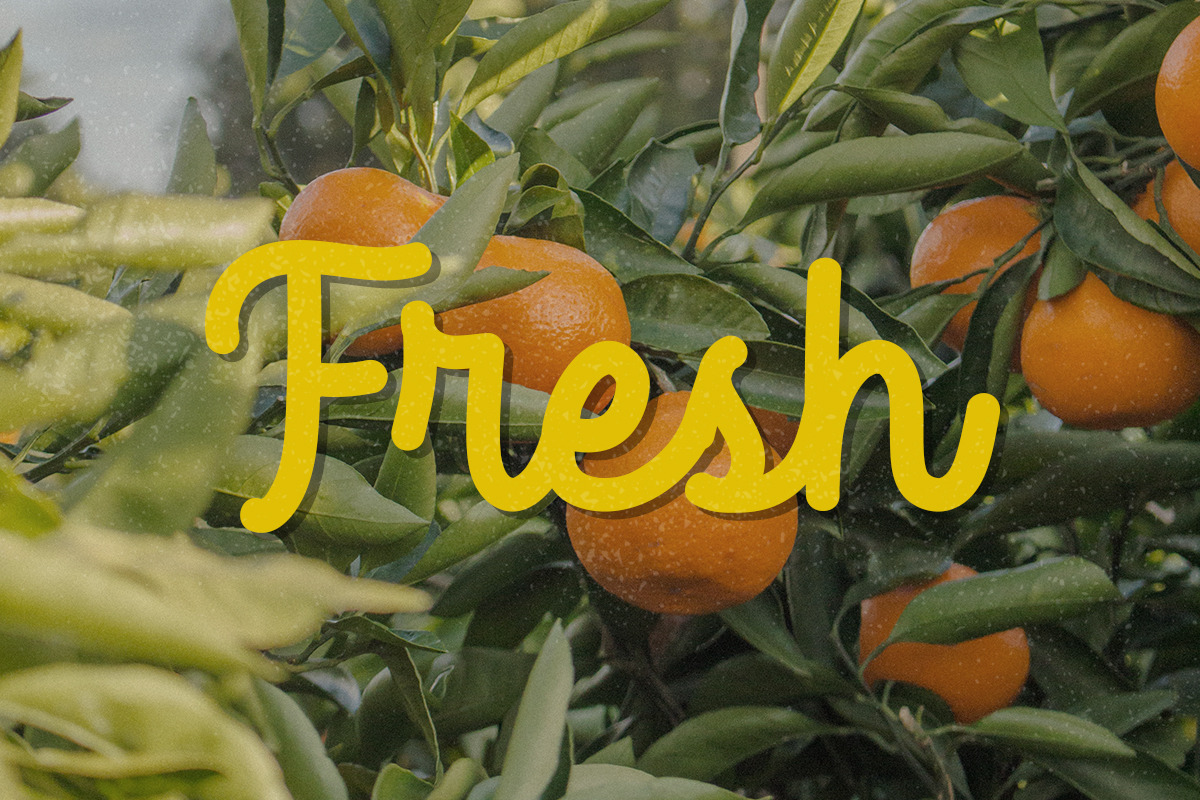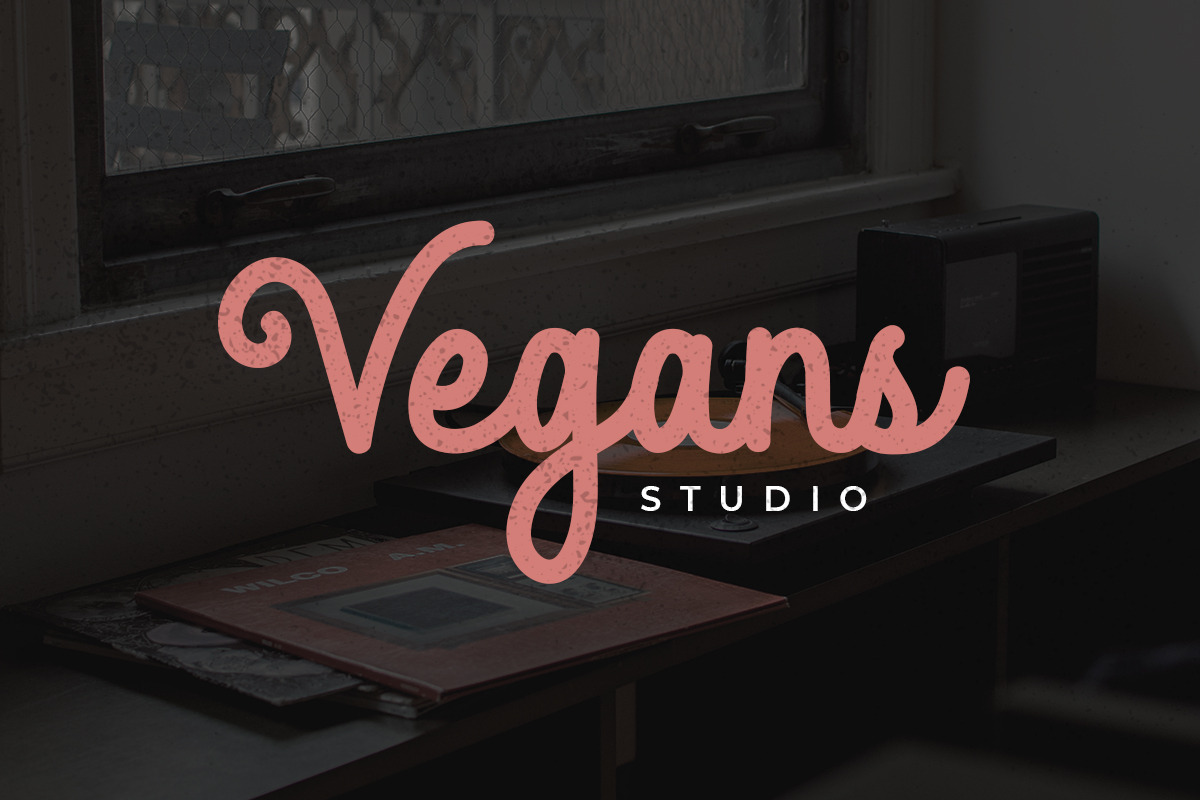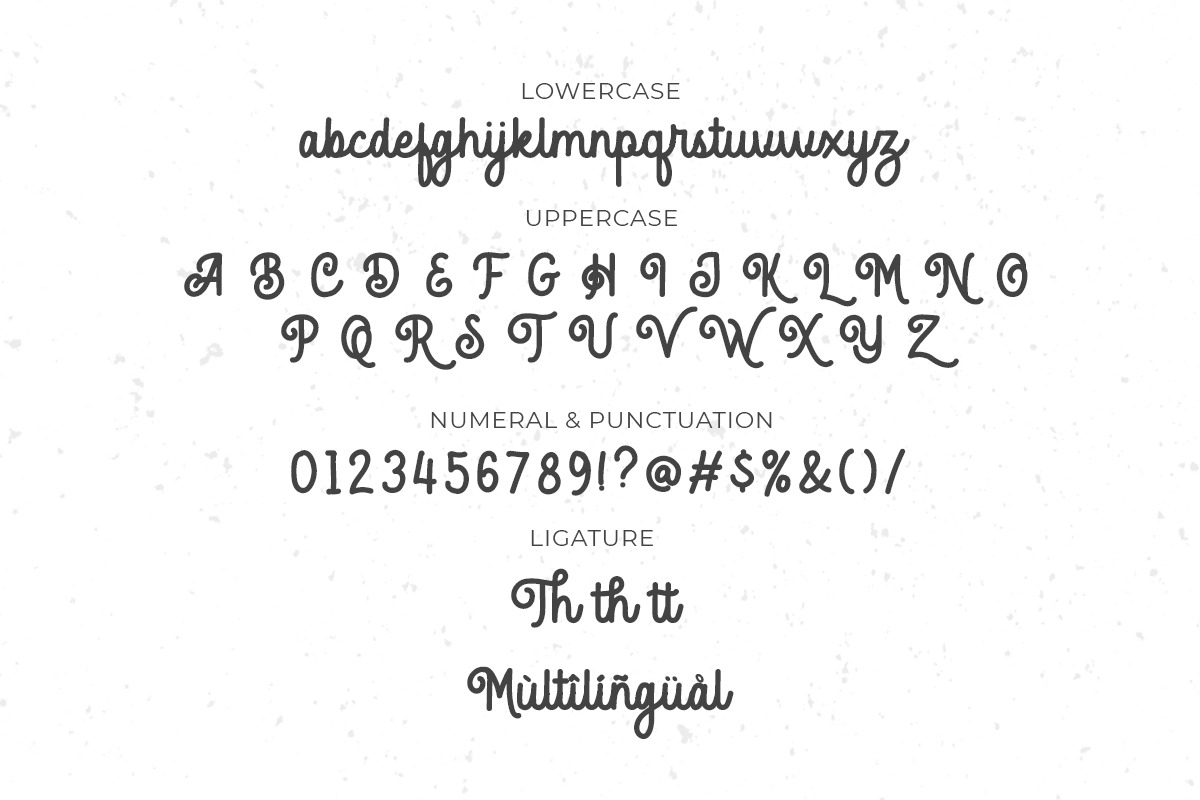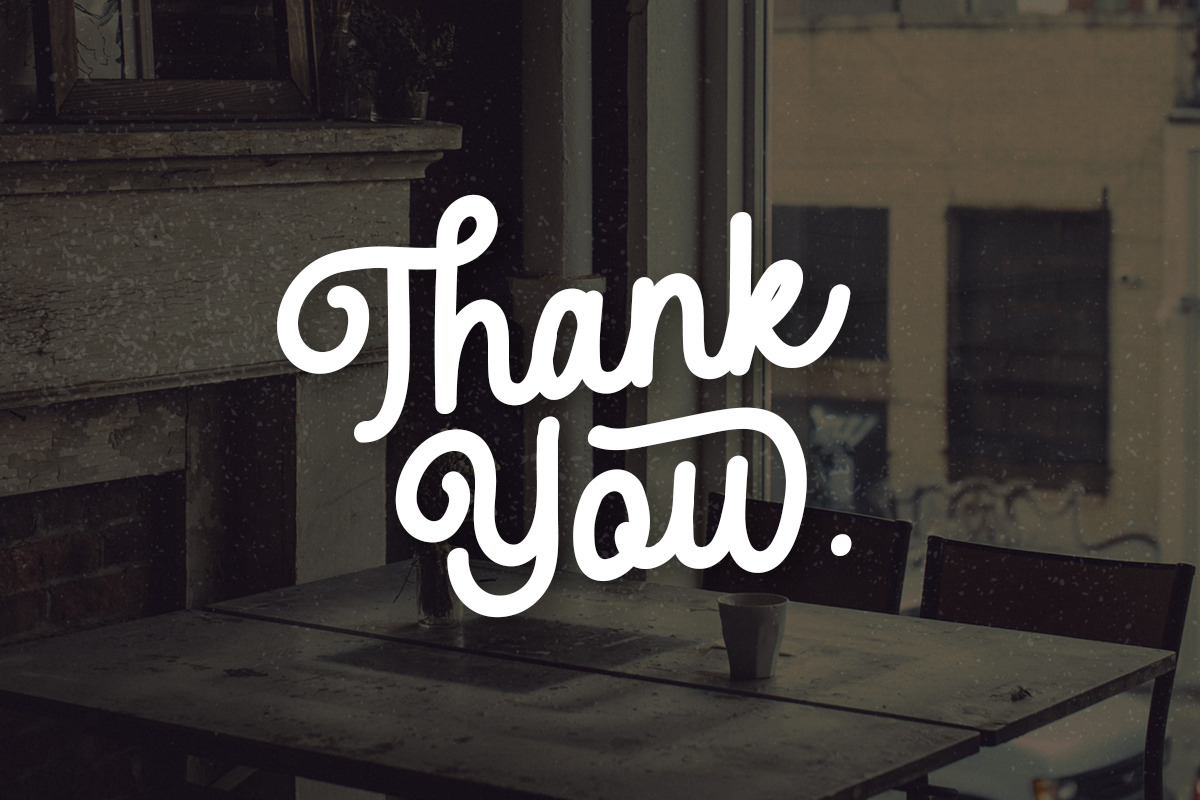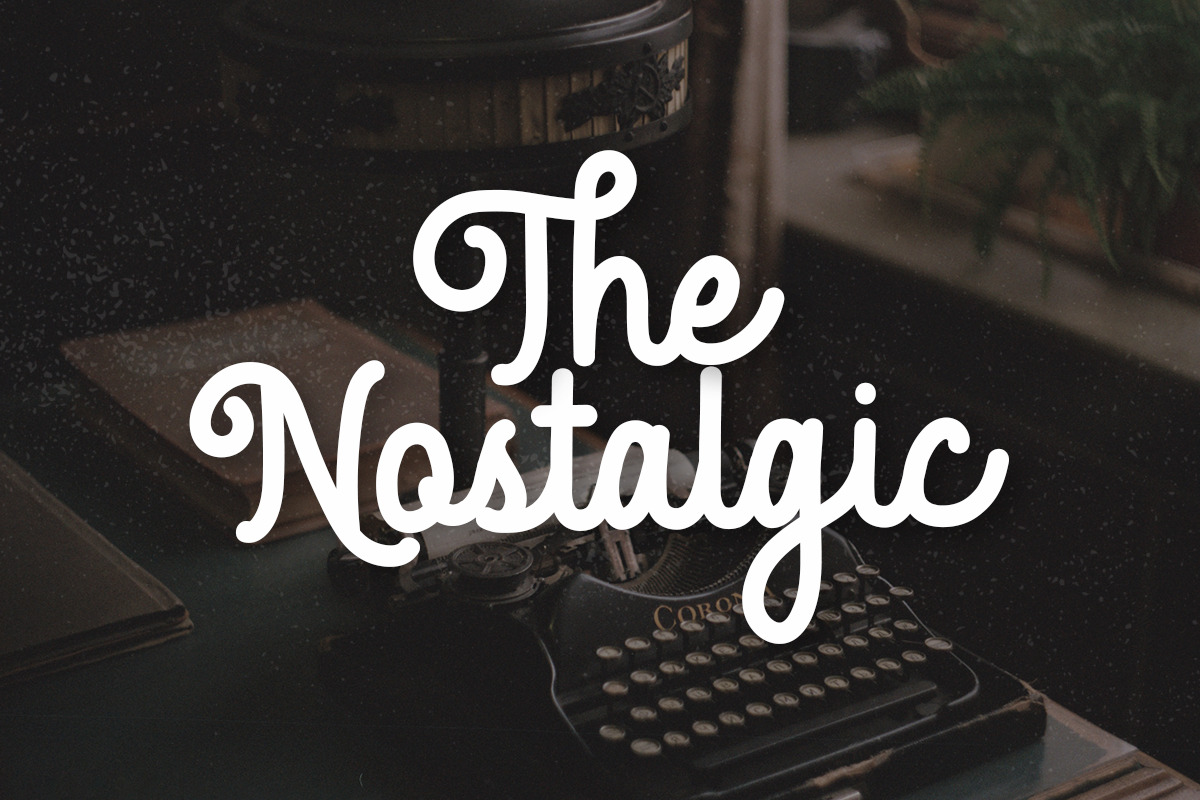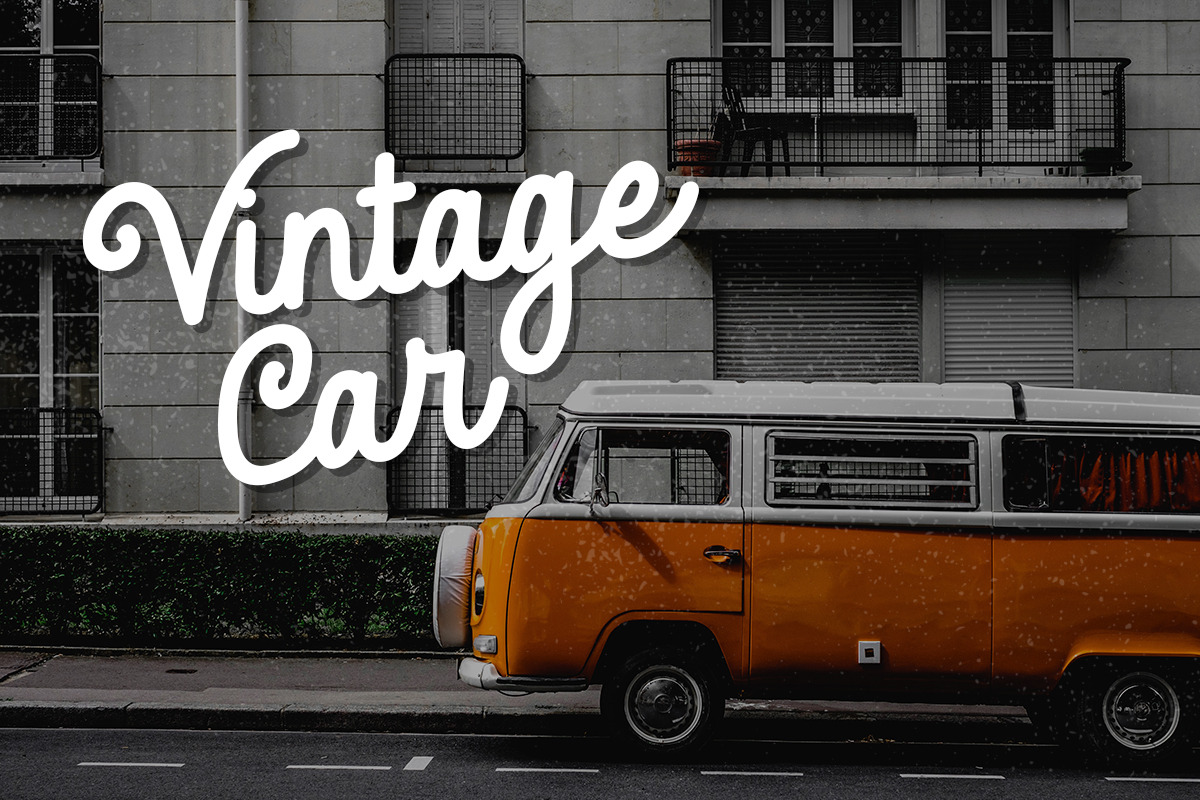
Rethina - Retro Script
Rethina is a script monoline font with vintage looks. It is perfect to create beautiful vintage typography on your any project. This font perfectly made to be applied especially in logo, and the other various formal forms such as invitations, labels, logos, magazines, books, greeting / wedding cards, packaging, fashion, make up, stationery, novels, labels or any type of advertising purpose.